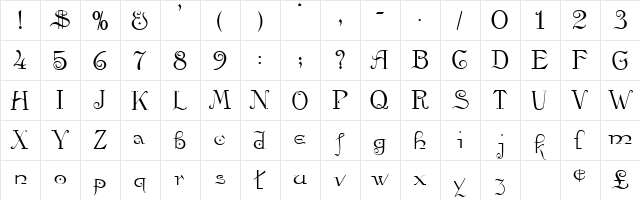
GE Vienna Script Normal
Design Context for GE Vienna Script Typeface
GE Vienna Script brings a calligraphic fluidity to the page — its connecting strokes and expressive curves give it an unmistakably human quality.
Font Pairing: Combine GE Vienna Script with a simple geometric sans for maximum contrast — the tension between flowing curves and clean structure is a classic typographic pairing.
Pro Tip: Use GE Vienna Script for short runs of text — names, titles, or taglines. Extended body copy in script faces tires the eye quickly.